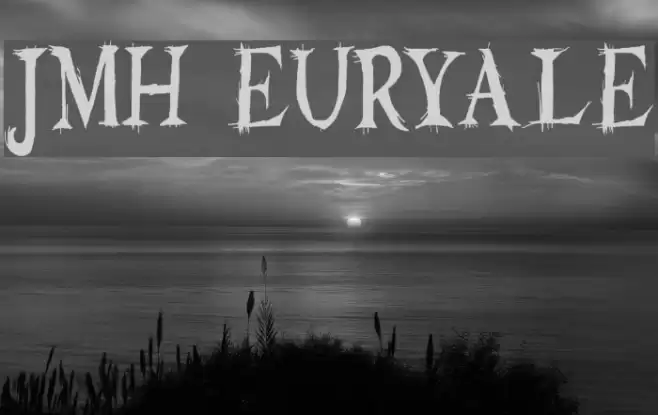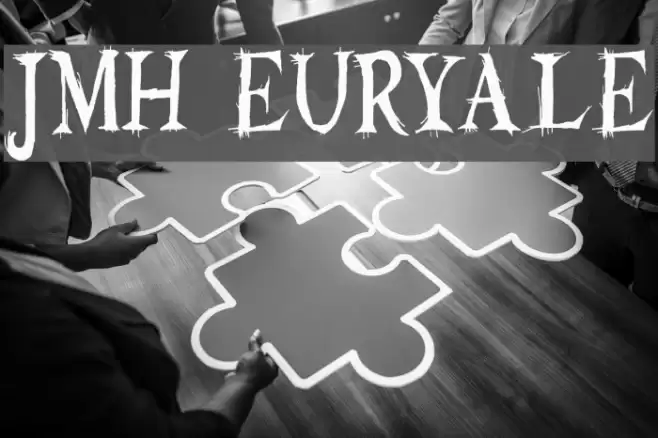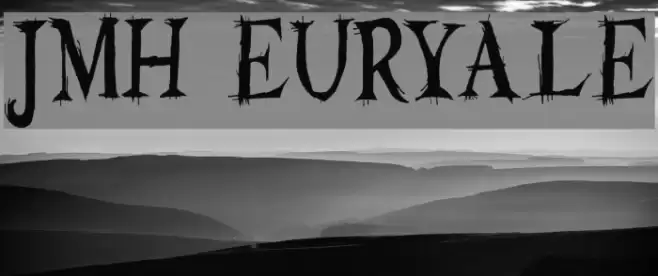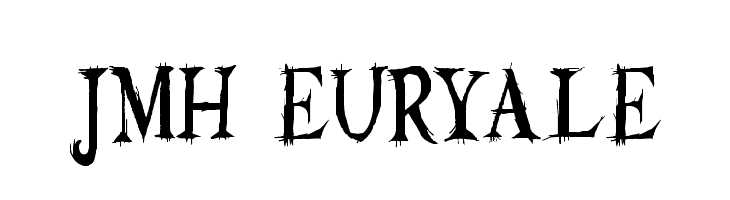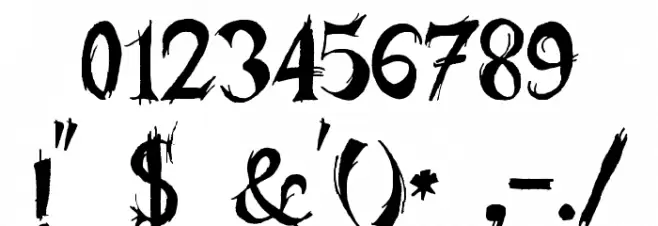
JMH Euryale Font
JMH Euryale Description
This font features a dramatic and edgy design with sharp, thorn-like extensions protruding from the characters, giving it a fierce and dynamic appearance. The strokes are bold and jagged, creating a sense of movement and intensity. The overall aesthetic is reminiscent of gothic or horror themes, making it suitable for projects that require a bold and striking visual impact. The uppercase and lowercase letters maintain a consistent style, while the numbers and special characters complement the overall design with similar sharp and pointed elements.
A bold, edgy font with sharp, thorn-like extensions and a gothic aesthetic from Horror fonts.
- Font: JMH Euryale
- Proposed Projects: Ideal for horror-themed posters, album covers, Halloween invitations, or any project needing a dramatic and intense visual style.
- Overall Style: Gothic, Dramatic
- Use Case: Headlines, Posters, Themed Events